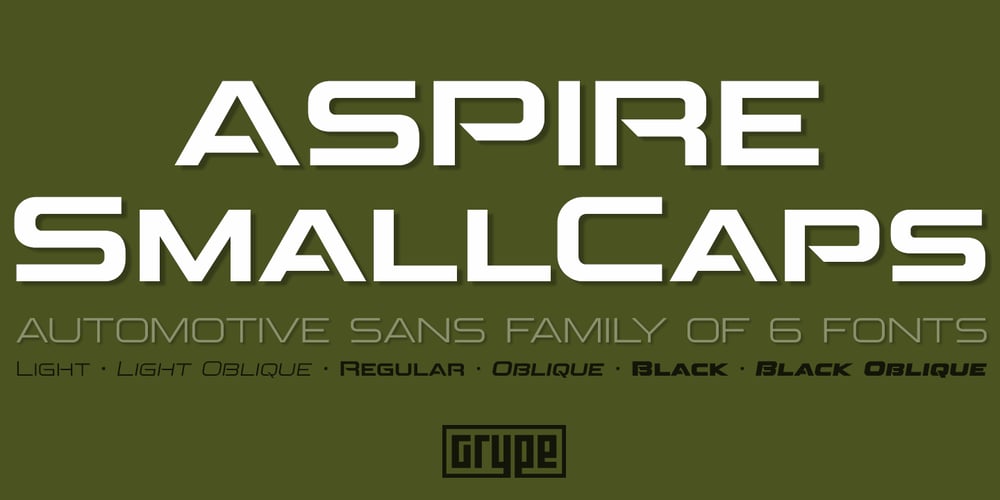
Aspire SmallCaps Font Family was designed by Jim Lyles, Brian J. Bonislawsky and published by Grype. Aspire SmallCaps contains 6 styles and family package options. Geometric/Technical style logotypes have been developed for car chrome labels since the early 1980’s. Many of these sleek logotypes are lacking an expansive family to enhance and express their brand in a richer sense, becoming true brand workhorses. The Aspire SmallCaps family finds its origin of inspiration in the ACURA automotive company logo, and from there expands to an 6 font family of weights & oblique styles, striving to become a workhorse. Aspire SmallCaps is perhaps the most true to form tribute to the original all capitals inspiration logotype. It maintains all capital forms (whether standard or smallcaps) and yet is still strikingly powerful in its presence and readability including numerals, and a comprehensive range of weights, creating a straightforward, uncompromising collection of typefaces that lend a solid foundation and a broad range of expression for designers. Here’s what’s included with the Aspire SmallCaps Family bundle: – 438 glyphs per style – including Capitals, Small Caps, Numerals, Punctuation and an extensive character set that covers multilingual support of latin based languages. (see the 6th graphic for a preview of the characters included) – Stylistic Alternates – alternate characters that remove the angled stencil cuts for a more standardized text look. – 3 weights in the family: Light, Regular, & Black. – 3 obliques in the family, one for each weight: Light, Regular, & Black. – Fonts are provided in TTF & OTF formats. The TTF format is the standard go to for most users, although the OTF and TTF function exactly the same. Here’s why the Aspire SmallCaps Family is for you: – You’re in need of automotive sans font family with a range of weights and obliques – You’re love that ACURA letter styling, and want to design anything within that genre – You’re looking for an alternative to Eurostile with more stylized letterforms. – You’re looking for a battle-tech typeface for your futuristic war chest labelling. – You just like to collect quality fonts to add to your design arsenal